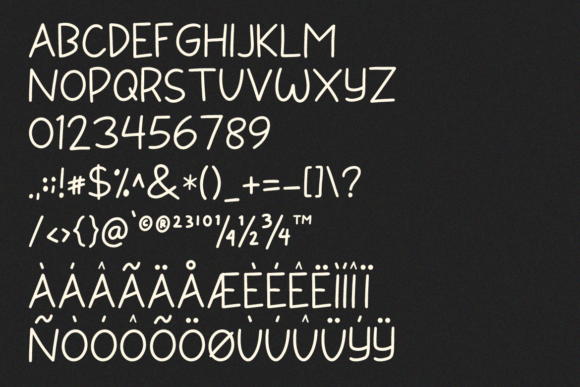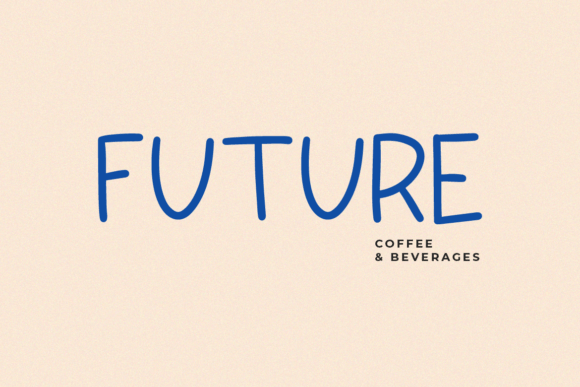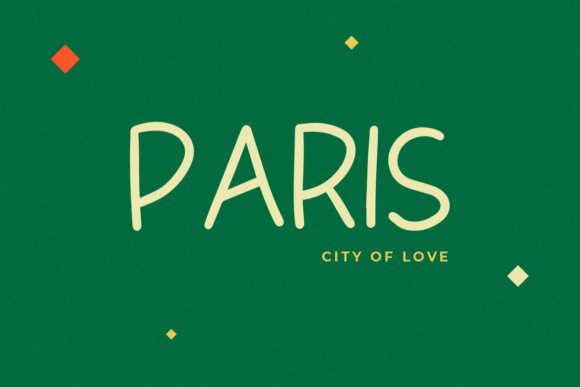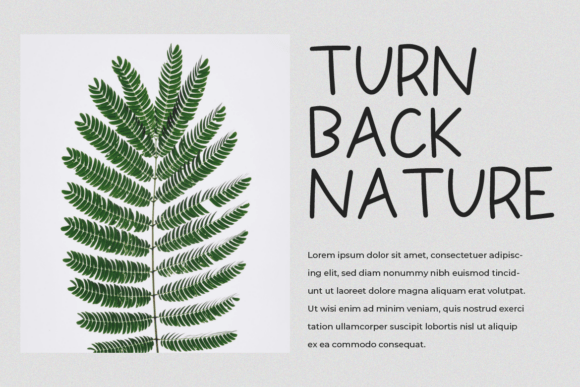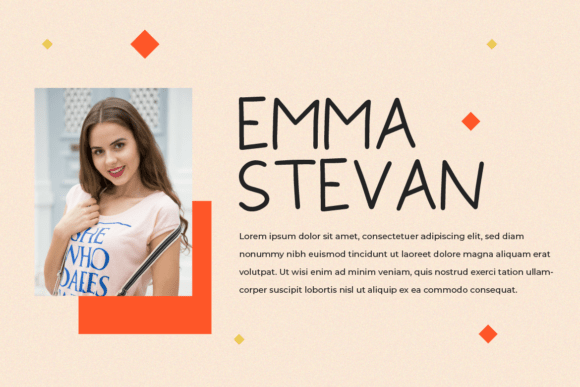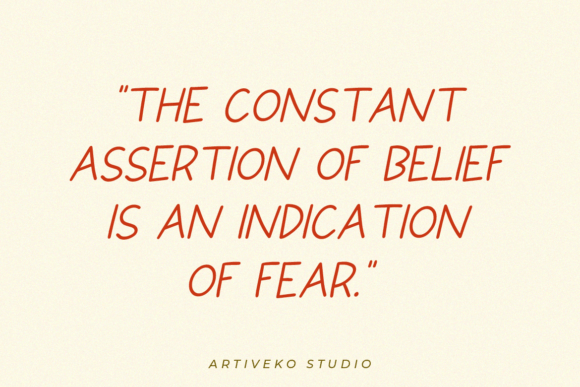
Introduction to Fondy Font
Fondy is a modern handwritten font that blends casual elegance with a personal touch.
Featuring smooth curves, natural strokes, and a flowing rhythm, Fondy is perfect for branding, wedding invitations, greeting cards, social media content, product packaging, and creative quotes .